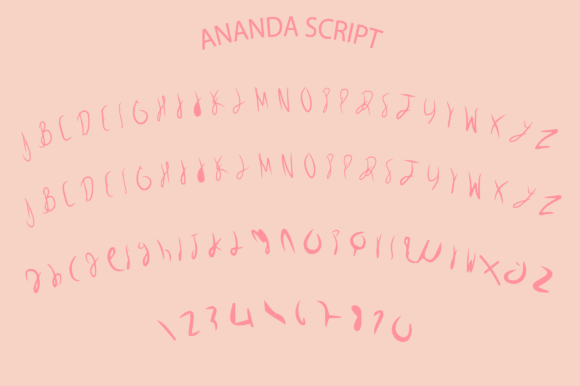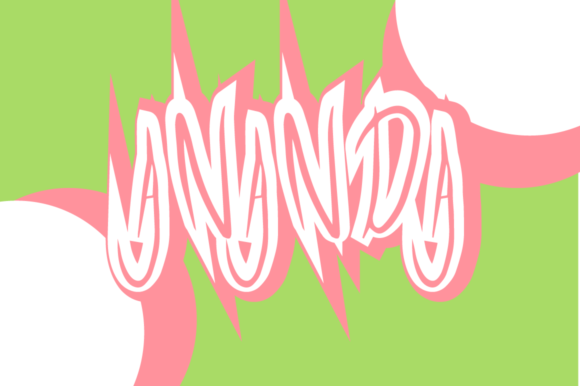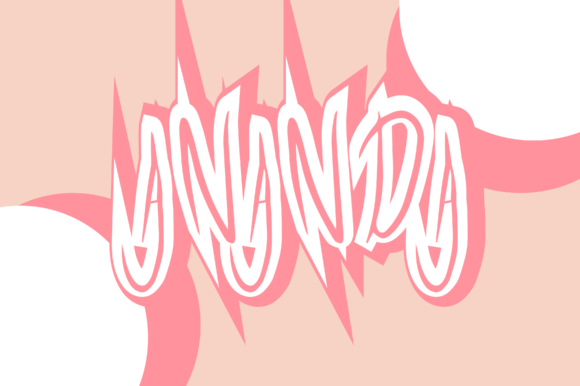
The Magical World of Ananda Font
I’ll never forget the time I was working on a whimsical craft project, pouring my heart and soul into creating a beautiful invitation for a friend’s baby shower. As I sat in front of my computer, scrolling through font after font, I just couldn’t find the perfect one. That was until I stumbled upon Ananda font. It was like a breath of fresh air – playful, elegant, and full of character. In this article, I’ll share my love for Ananda font, its features, and how you can make the most of it in your designs.
An Honest Review of Ananda Font
What I Love About Ananda Font ✨
- Its whimsical and elegant feel makes it perfect for a wide range of designs, from invitations to branding materials ✅
- The font is highly legible, even at smaller sizes, making it ideal for body text and headings 📚
- Ananda font comes with a range of OpenType features, including stylistic alternates and glyphs, which allow for endless creative possibilities 🎨
- It’s a versatile font that can be used for both digital and print projects, making it a great addition to any design library 📊
- Some users may find that the font’s playful nature doesn’t suit more formal or corporate designs ⚠️
- As with any script font, it may not be the best choice for very long blocks of text, as it can be a bit more challenging to read 📖
A Practical Guide to Using Ananda Font
The Story Behind Ananda Font
Ananda font was designed by a talented type designer who wanted to create a font that would bring a touch of whimsy and elegance to any design. Inspired by traditional calligraphy and hand-lettering, Ananda font is the perfect blend of playfulness and sophistication. Whether you’re a designer, crafter, or creative hobbyist, Ananda font is sure to become a favorite in your font library.
| Font Name | Ananda Font |
| Author | Wana Studio |
| What type of projects is Ananda font best suited for? | Ananda font is a versatile font that can be used for a wide range of projects, including invitations, branding materials, social media graphics, and more. |
| Is Ananda font suitable for body text? | While Ananda font is highly legible, it’s best used for headings and titles. For longer blocks of text, a serif font may be more suitable. |
| Does Ananda font come with OpenType features? | Yes, Ananda font comes with a range of OpenType features, including stylistic alternates and glyphs, which allow for endless creative possibilities. |